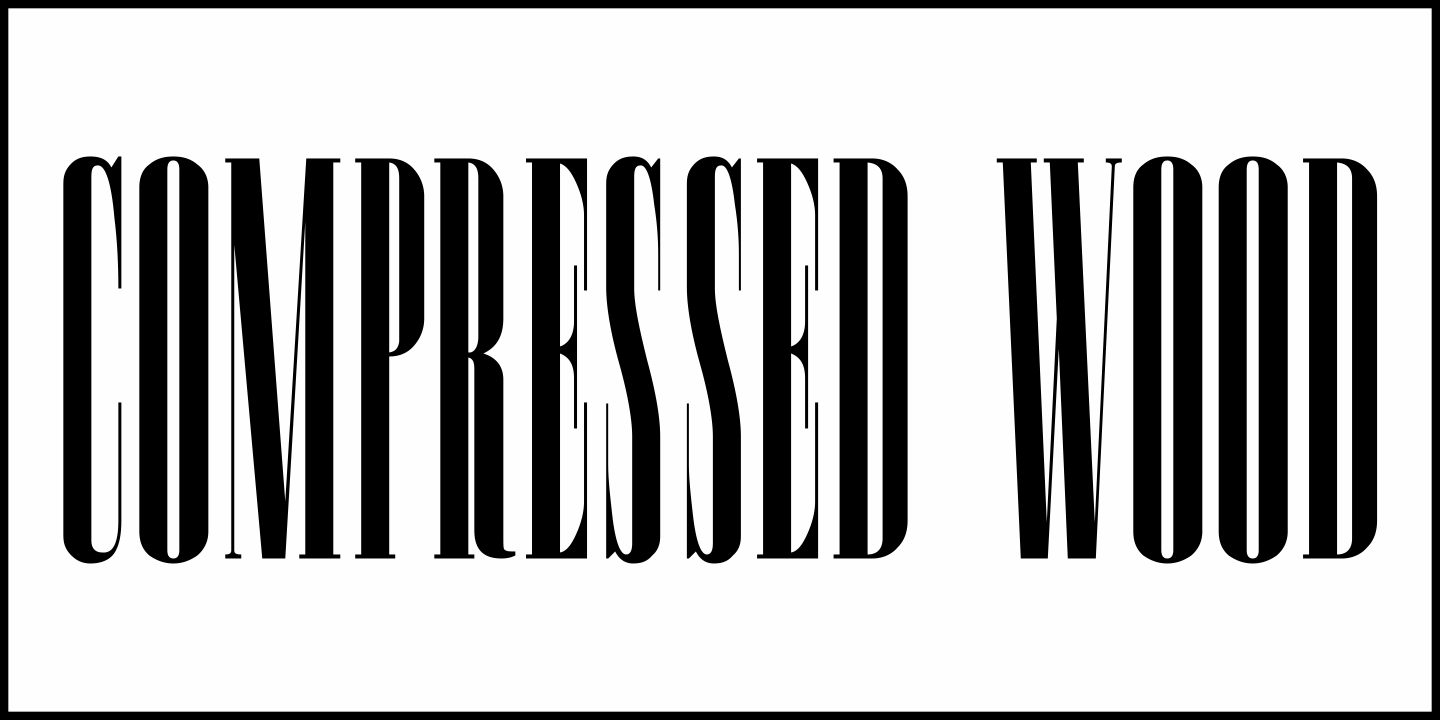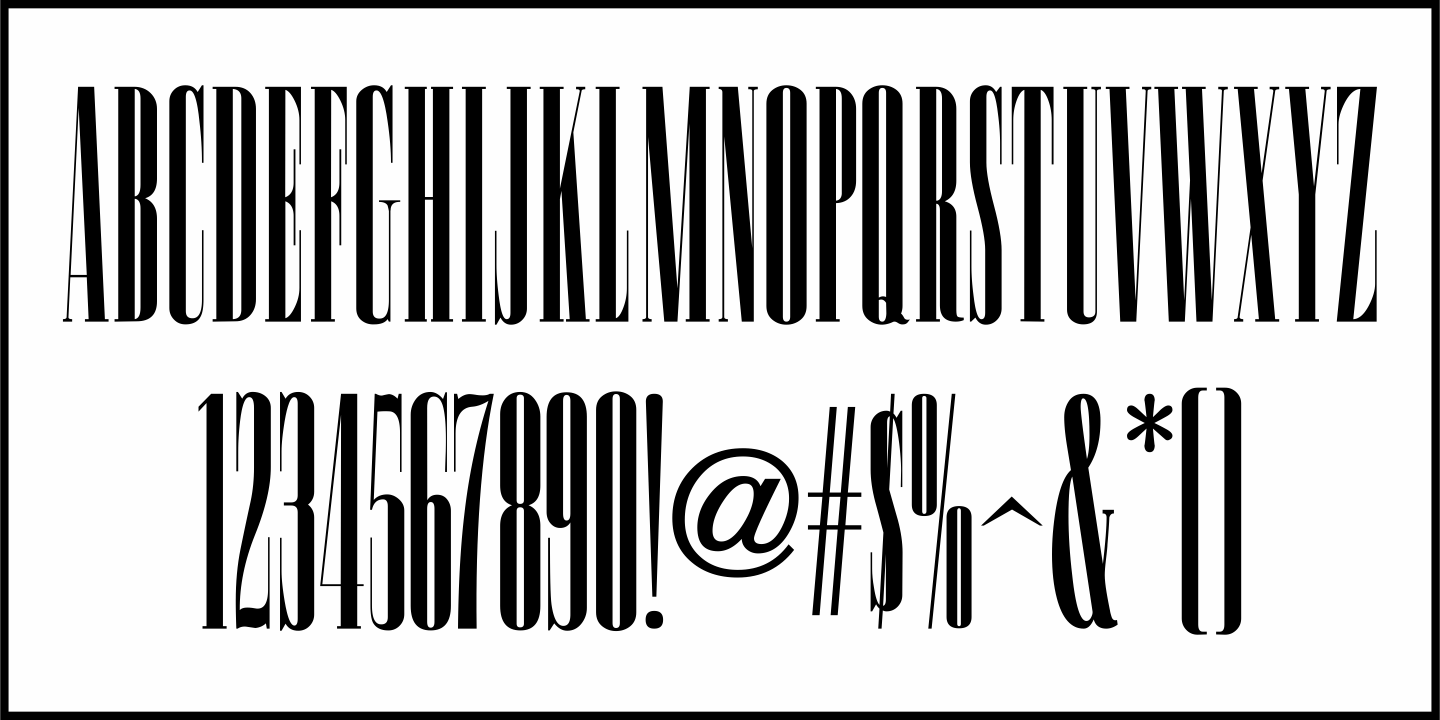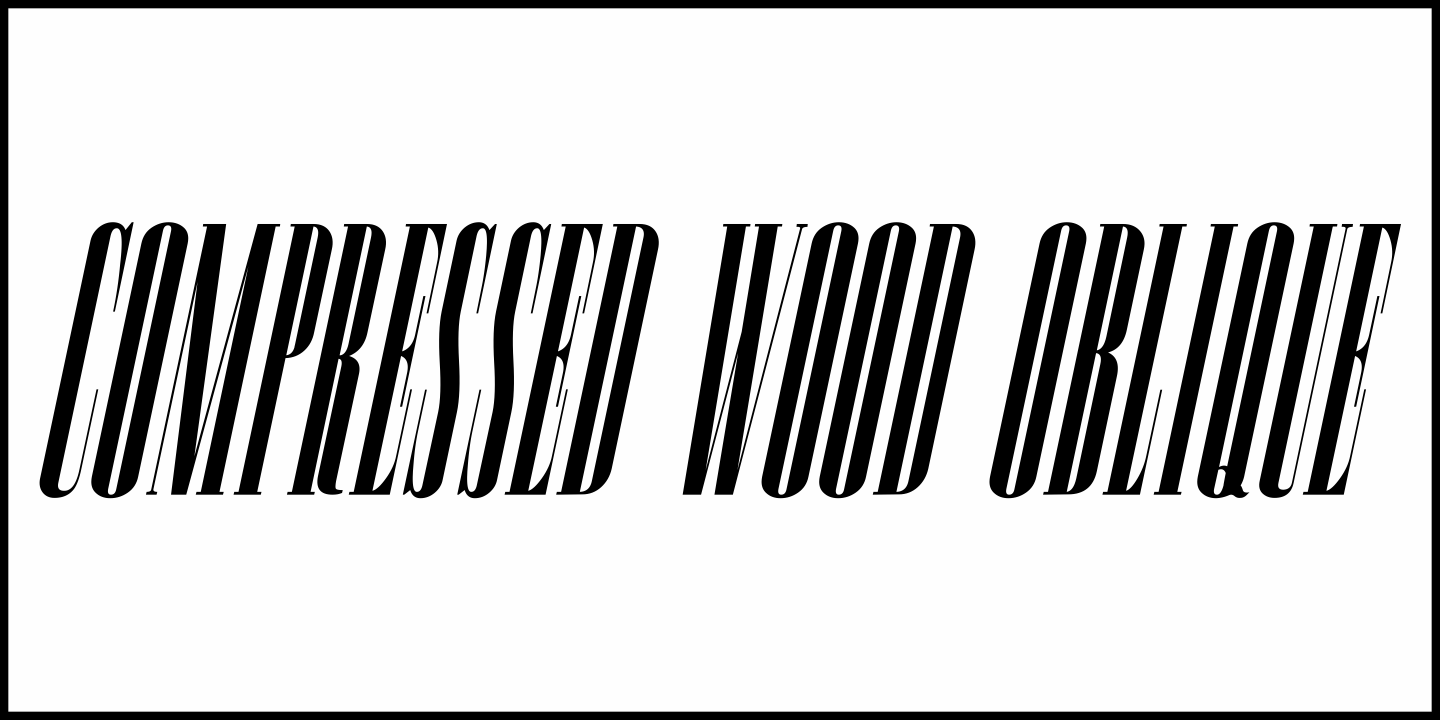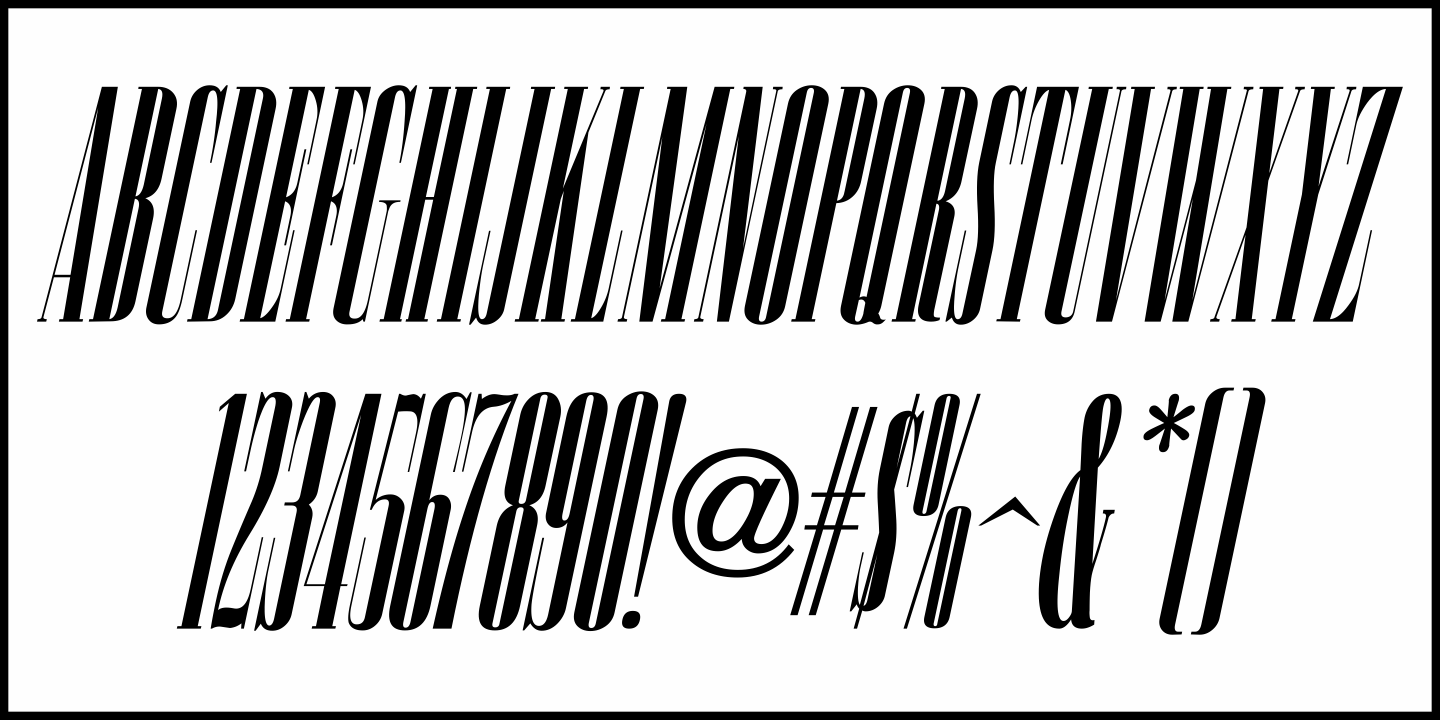
Compressed Wood
Two word examples (“nice” and “bud”) from the J.G. Cooley & Co.’s Specimens of Wood Type catalog for the typeface ‘Roman Triple Extra Condensed Fifty Line’ offered only seven letters to work with.
Despite this lack of characters, it inspired Compressed Wood JNL, which is available in both regular and oblique versions.
Compressed Wood JNL Regular by Jeff Levine Fonts